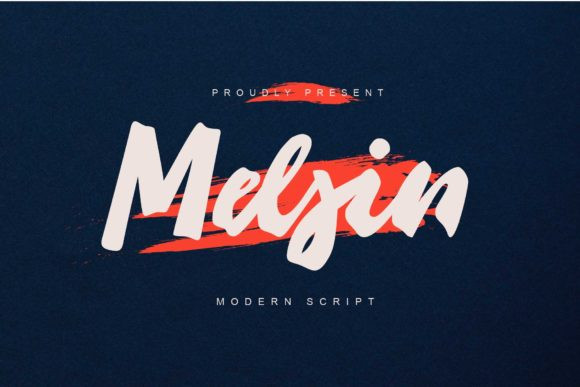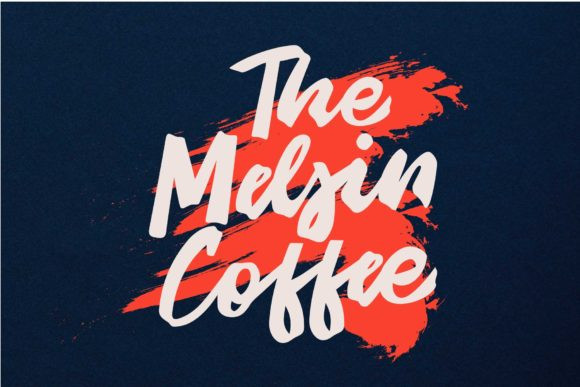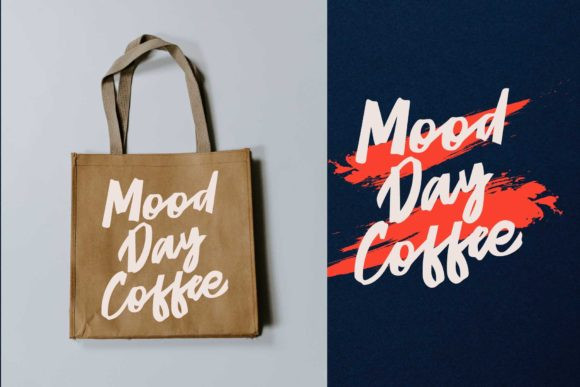
Melsin Font
Melsin is a modern and thick lettered handwritten font. This original look will appeal to a wide range of crafty ideas, from letterheads and titles, to stationery.